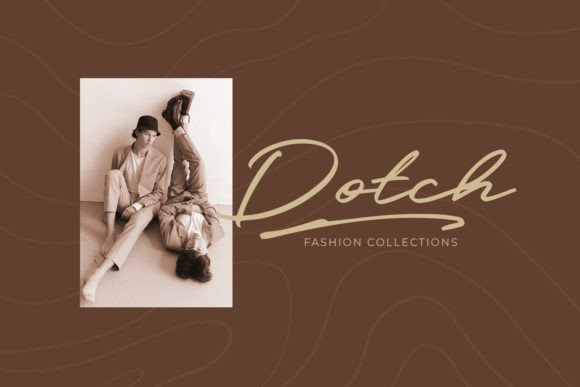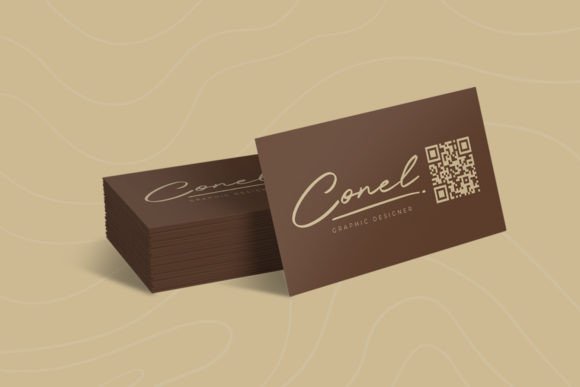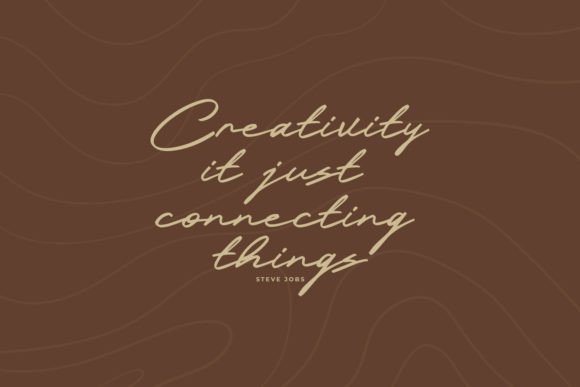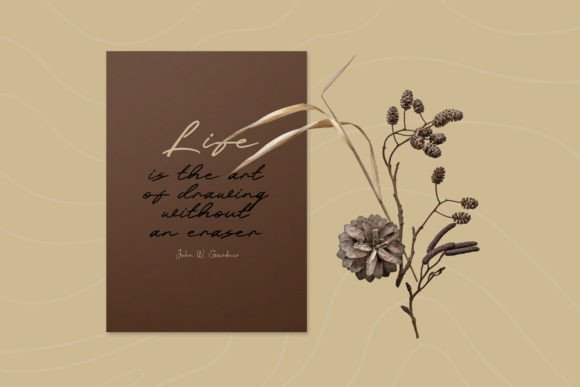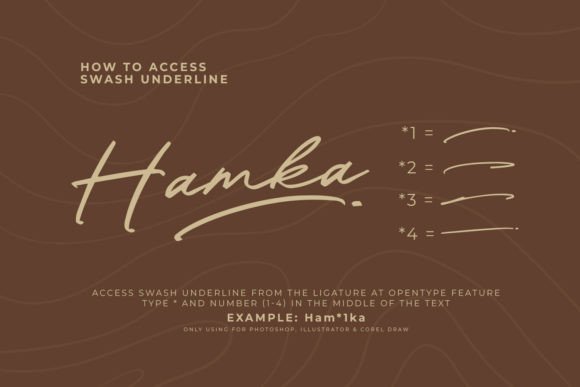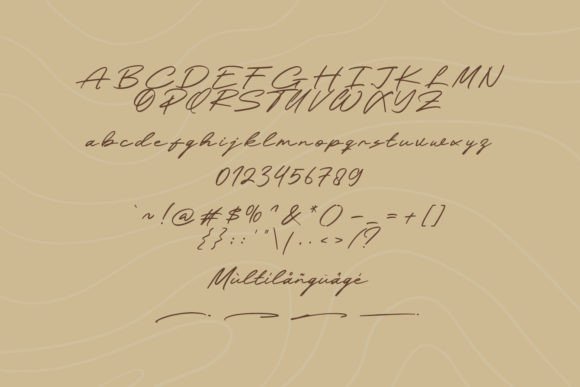
Introducing Cashrole Font: Elevate Your Designs with Elegance and Sophistication
Are you a designer, crafter, or creative looking for a font that embodies style, modernity, and elegance? Look no further than Cashrole Font! This stunning script font is perfect for a wide range of projects, from posters and logos to magazines, book covers, and banners. In this article, we’ll dive into the world of Cashrole Font, exploring its features, benefits, and uses, and show you how it can take your designs to the next level.
What is Cashrole Font?
Cashrole Font is a clean, stylish, modern, and elegant script font designed to make your designs stand out. Its sleek lines, flowing curves, and precise craftsmanship make it an ideal choice for projects that require a touch of sophistication and glamour. Whether you’re creating a logo, poster, or book cover, Cashrole Font is sure to impress.
Key Features of Cashrole Font
- Clean and Elegant Design: Cashrole Font boasts a clean and elegant design that exudes sophistication and style.
- Modern and Stylish: Its modern and stylish aesthetic makes it perfect for designs that require a fresh and contemporary look.
- Script Font: As a script font, Cashrole Font adds a touch of elegance and refinement to any design.
- Versatile: Cashrole Font can be used for a wide range of projects, from posters and logos to magazines, book covers, and banners.
Benefits of Using Cashrole Font
So, why choose Cashrole Font for your designs? Here are just a few benefits of using this amazing font:
- Instant Recognition: Cashrole Font’s unique and stylish design ensures instant recognition and attention-grabbing impact.
- Professional Look: Its clean and elegant design gives your designs a professional look that’s sure to impress.
- Easy to Read: Despite its stylish and script nature, Cashrole Font is easy to read, making it perfect for body text and headlines.
- Customizable: Cashrole Font can be easily customized to fit your design needs, from adjusting font sizes to experimenting with different colors.
Using Cashrole Font in Your Designs
So, how can you use Cashrole Font in your designs? Here are a few ideas to get you started:
- Logos and Branding: Use Cashrole Font to create stunning logos and branding materials that exude elegance and sophistication.
- Posters and Flyers: Add a touch of glamour to your posters and flyers with Cashrole Font’s stylish and modern design.
- Magazines and Book Covers: Use Cashrole Font to create eye-catching magazine covers and book titles that grab attention.
- Banners and Signs: Make your banners and signs stand out with Cashrole Font’s clean and elegant design.
Tips and Tricks for Getting the Most Out of Cashrole Font
To get the most out of Cashrole Font, here are a few tips and tricks to keep in mind:
- Experiment with Font Sizes: Play around with different font sizes to find the perfect balance for your design.
- Pair with Other Fonts: Combine Cashrole Font with other fonts to create a unique and visually appealing design.
- Adjust Line Spacing: Adjust line spacing to ensure your text is easy to read and visually appealing.
- Use Colors Wisely: Choose colors that complement Cashrole Font’s elegant and sophisticated design.